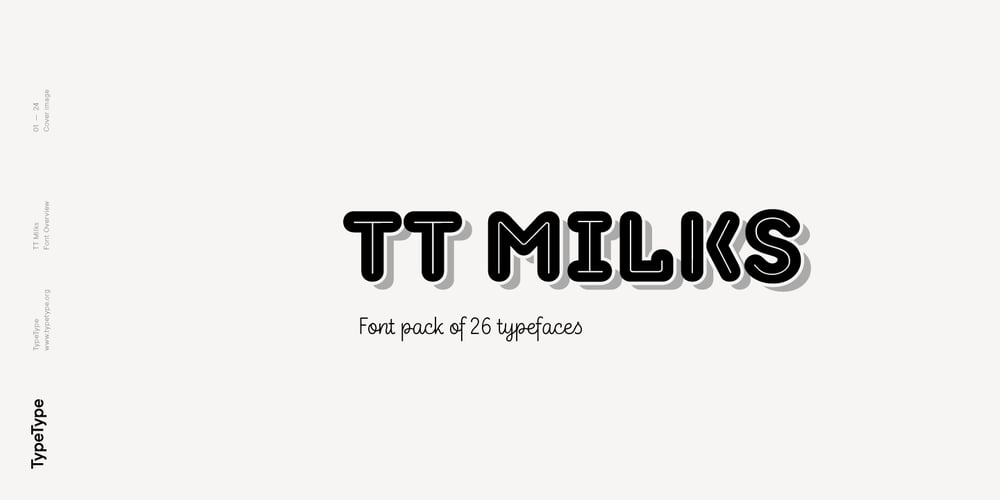
TT Milks Font Family was designed by Ivan Gladkikh, TypeType Team and published by TypeType. TT Milks contains 26 styles and family package options. TT Milks useful links:Specimen | Graphic presentation | Customization optionsAbout TT Milks: The collection of scripts and wonderful decorative typefaces. Initially the idea for TT Milks was to create a collection of fonts to be used for packaging and branding of dairy products. While working on the initial idea, we’ve tested all possible glyph variations, which resulted in a large decorative designer font family. Thanks to a variety of elements, TT Milks collection has exceeded its initial idea and now offers an unlimited application range.TT Milks type collection includes several subfamilies and consists of 26 typefaces: TT Milks Script subfamily is a satellite to the basic typefaces and features 5 weights. Every typeface of the TT Milks Script subfamily consists of 801 glyphs and supports a lot of OT features: ordn, frac, case, sups, sinf, numr, dnom, tnum, onum, pnum, liga, calt. TT Milks Casual Script consists of two script faces with a different degree of roughness. In TT Milks Casual we’ve collected 6 typefaces—the unique Black called 900 in three degrees of roughness, and the Bold called 700 featuring three degrees of roughness as well. TT Milks Casual Shadow is a version with broader letter setting and shadow effects. There’s a clean shadowed version, three variants of rough typefaces with shadows, and a rough shadowed inline typeface—5 typefaces in total. TT Milks Casual Pie is a special set of typefaces which can be easily combined with each other using different layers. The set of the subfamily includes two basic typefaces—black and inline, and also features a typeface with a clean shadow, a shadowed inline typeface and line typeface. TT Milks Outline completes the collection. It consists of a total of 3 amusing super-display typefaces—outline, outline shadow, and a cow pelt patterned typeface. All typefaces belonging to TT Milks Casual and TT Milks Outline subfamilies contain uppercase letters only, and support tabular numbers and case sensitivity.TT Milks language support: Acehnese, Afar, Albanian, Alsatian, Aragonese, Arumanian, Asu, Aymara, Banjar, Basque, Belarusian (cyr), Bemba, Bena, Betawi, Bislama, Boholano, Bosnian (cyr), Bosnian (lat), Breton, Bulgarian (cyr), Cebuano, Chamorro, Chiga, Colognian, Cornish, Corsican, Cree, Croatian, Czech, Danish, Embu, English, Erzya, Estonian, Faroese, Fijian, Filipino, Finnish, French, Friulian, Gaelic, Gagauz (lat), Galician, German, Gusii, Haitian Creole, Hawaiian, Hiri Motu, Hungarian, Icelandic, Ilocano, Indonesian, Innu-aimun, Interlingua, Irish, Italian, Javanese, Judaeo-Spanish, Kalenjin, Karachay-Balkar (lat), Karaim (lat), Karakalpak (lat), Kashubian, Khasi, Khvarshi, Kinyarwanda, Kirundi, Kongo, Kumyk, Kurdish (lat), Ladin, Latvian, Laz, Leonese, Lithuanian, Luganda, Luo, Luxembourgish, Luyia, Macedonian, Machame, Makhuwa-Meetto, Makonde, Malay, Manx, Maori, Mauritian Creole, Minangkabau, Moldavian (lat), Montenegrin (lat), Mordvin-moksha, Morisyen, Nahuatl, Nauruan, Ndebele, Nias, Nogai, Norwegian, Nyankole, Occitan, Oromo, Palauan, Polish, Portuguese, Quechua, Rheto-Romance, Rohingya, Romanian, Romansh, Rombo, Rundi, Russian, Rusyn, Rwa, Salar, Samburu, Samoan, Sango, Sangu, Scots, Sena, Serbian (cyr), Serbian (lat), Seychellois Creole, Shambala, Shona, Slovak, Slovenian, Soga, Somali, Sorbian, Sotho, Spanish, Sundanese, Swahili, Swazi, Swedish, Swiss German, Tagalog, Tahitian, Taita, Tatar, Tetum, Tok Pisin, Tongan, Tsonga, Tswana, Turkish, Turkmen (lat), Ukrainian, Uyghur, Vepsian, Volapük, Võro, Vunjo, Xhosa, Zaza, Zulu.